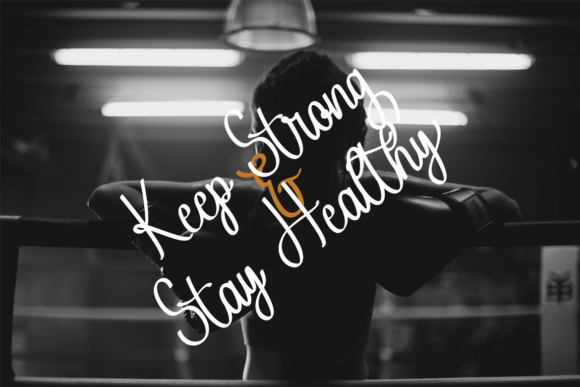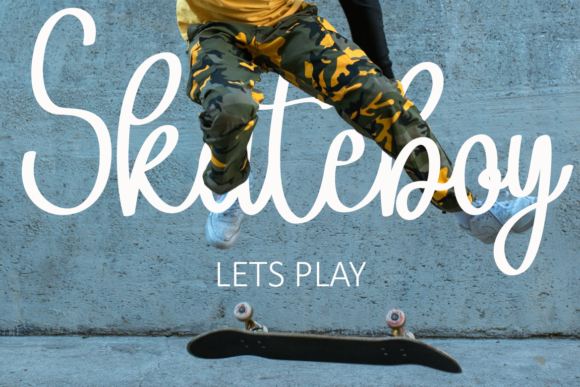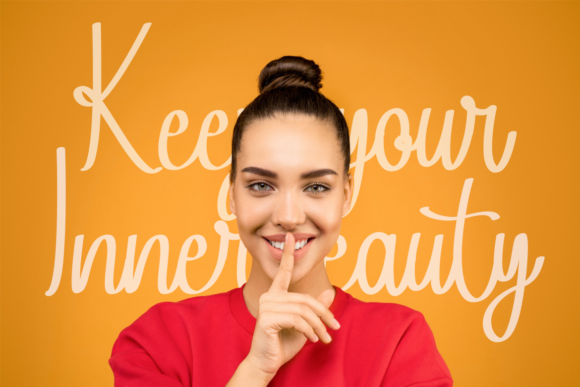
Introduction to Chaching Font
Have you ever stumbled upon a design that makes you stop and stare? Maybe it’s a beautiful logo, a stunning invitation, or a captivating social media post. Whatever it is, it’s likely that the Chaching Font played a role in making it stand out. This lovely and delicate script font exudes elegance and class, making it the perfect addition to any high-quality creative project.
As a designer, you’re always on the lookout for unique design resources that can elevate your work. The Chaching Font is a valuable asset to have in your toolkit, offering a refreshing look that’s sure to impress. Whether you’re working on a personal project or a client’s design, this font is sure to bring a touch of sophistication and style.
Key Features of Chaching Font
• High-quality design: Chaching Font is a premium design resource that offers a unique and creative touch to any project.
• Transparent background: The transparent background of Chaching Font allows for seamless integration with any design or image.
• Resolution: The font is optimized for high-resolution displays, ensuring crisp and clear text even at large sizes.
• Unique characteristics: Chaching Font features a distinctive and playful design that is perfect for creative projects, such as logos, posters, and infographics.
• Size: The font family includes multiple weights and styles, ranging from 100 to 900, allowing for a wide range of design possibilities.
Honest Review: Chaching Font
As a designer, I’m always on the lookout for high-quality fonts to elevate my creative projects. Recently, I stumbled upon the Chaching Font, and I’m excited to share my honest review with you.
What works well: ✨ The Chaching Font is a great addition to any design project, offering a unique and playful aesthetic. The font is available for free download, making it an excellent resource for designers on a budget. I also appreciate the transparent background, which makes it easy to use in various design scenarios.
• Unique and playful aesthetic
• High-quality design resource
Limitations: ⚠️ While the Chaching Font is a great addition to any design project, it’s not without its limitations. The font may not be suitable for formal or professional projects, as it has a more casual and playful feel.
Overall, I’m impressed with the Chaching Font and would definitely recommend it to designers looking for a fun and creative font to use in their projects. It’s a great design resource to have in your collection, and I’m excited to see how it can help take my designs to the next level.
Chaching Font
1. Use the font on a transparent background to create a seamless design.
2. Experiment with different font sizes and styles to create a unique look.
3. Combine the font with other design elements to create a visually appealing design.
The Chaching Font is suitable for a variety of design projects, including:
1. Social media graphics
2. Website headers and footers
3. Brochures and flyers
4. Presentation slides